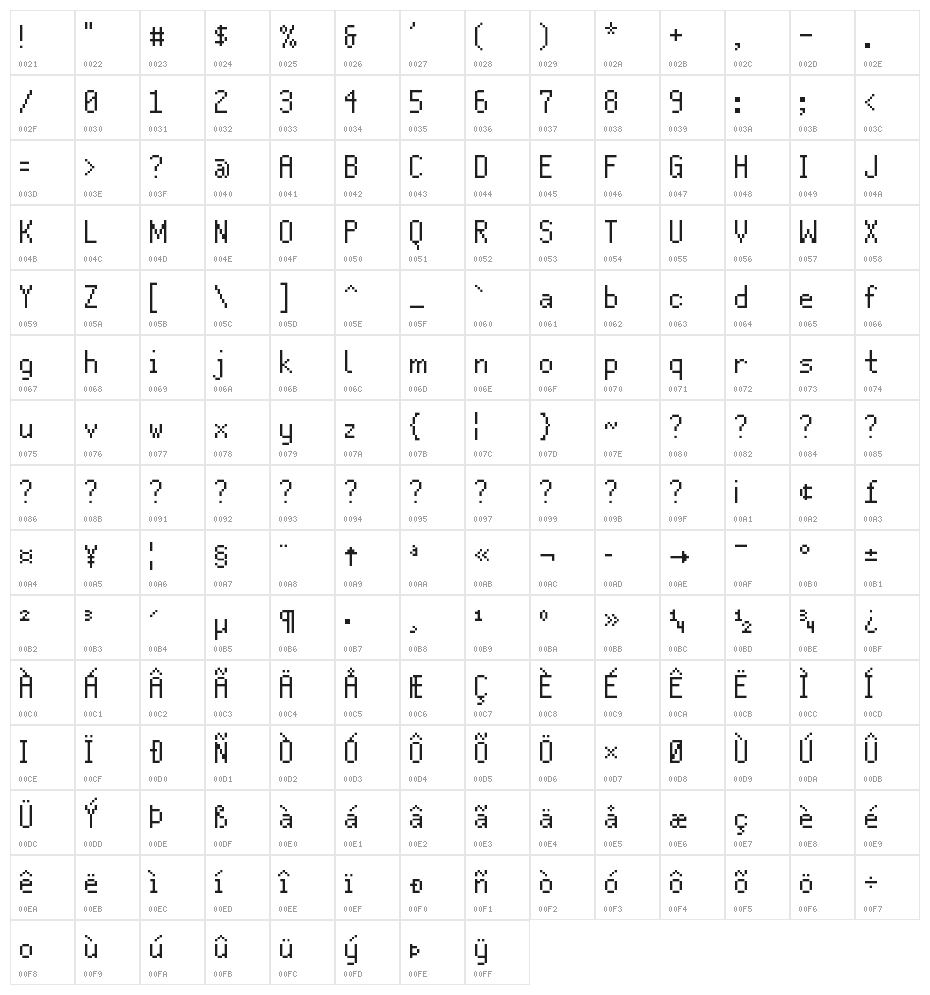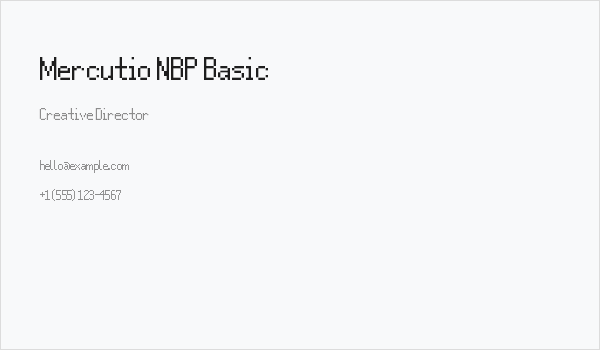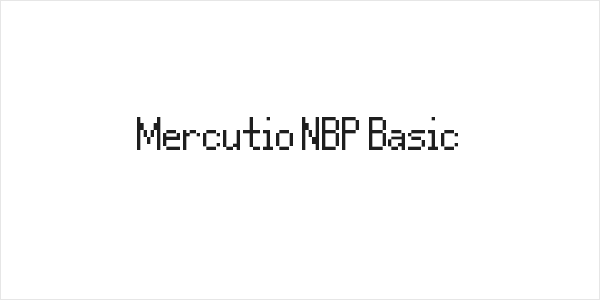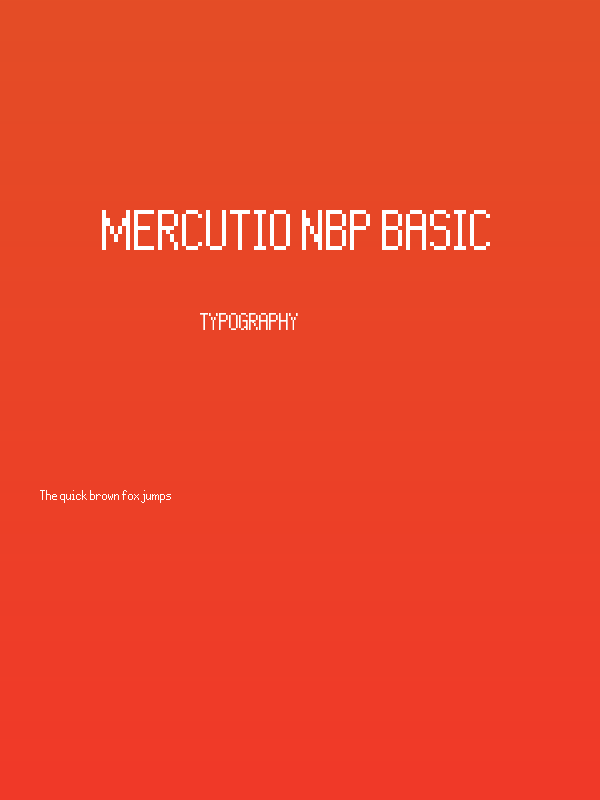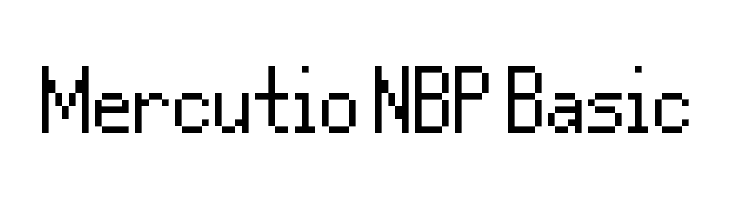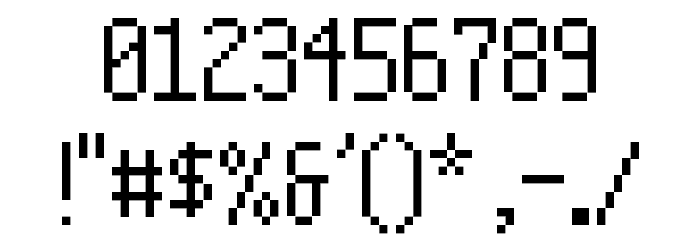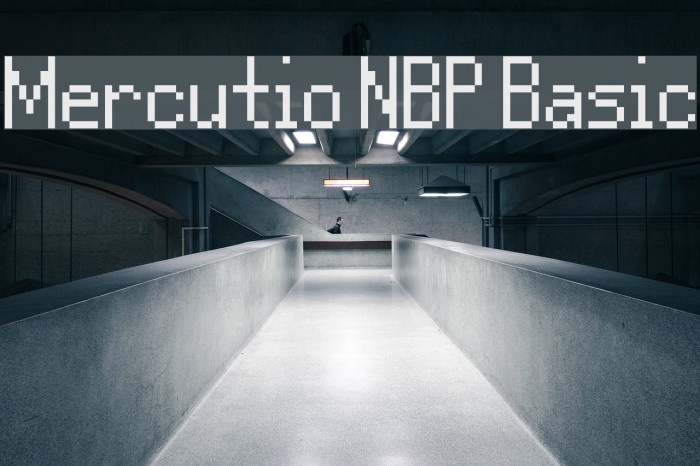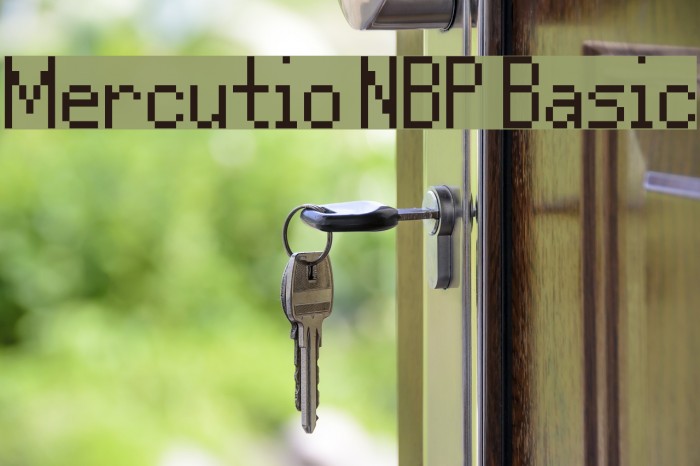
Mercutio NBP Basic Font
Mercutio NBP Basic Description
This font features a pixelated, monospaced design that evokes a retro, digital aesthetic reminiscent of early computer screens and video games. Each character is constructed with a uniform grid-like structure, giving it a blocky appearance that is both nostalgic and modern. The uppercase and lowercase letters maintain a consistent height, contributing to a clean and organized look. Numbers and special characters follow the same pixelated style, ensuring a cohesive visual experience across all text elements. The simplicity and clarity of the design make it highly legible, even at smaller sizes, while the unique style adds a playful and tech-inspired touch.
| Overall Style | Retro, Digital |
| Use Case | Headlines, Logos, Digital displays |
| Proposed Projects | Ideal for video game design, retro-themed websites, digital art projects, and coding interfaces. |